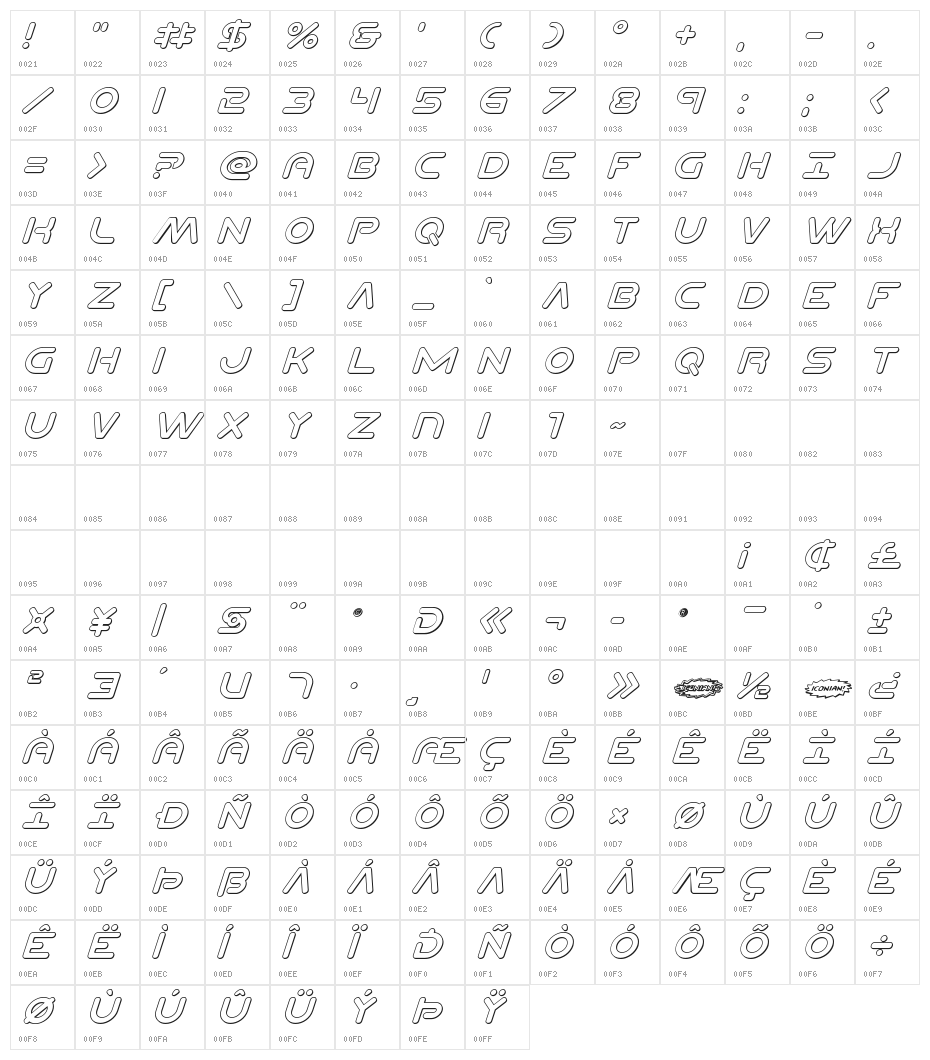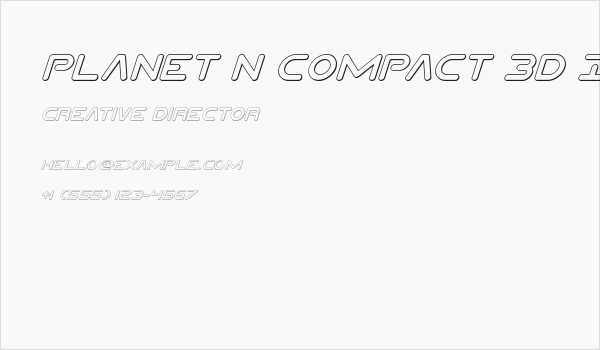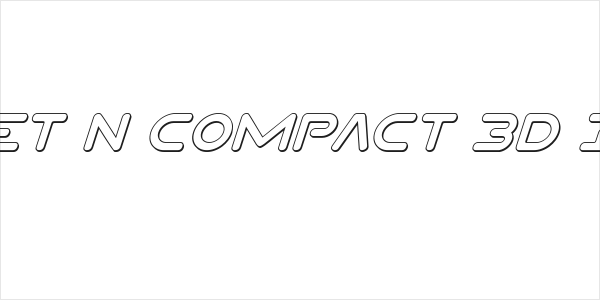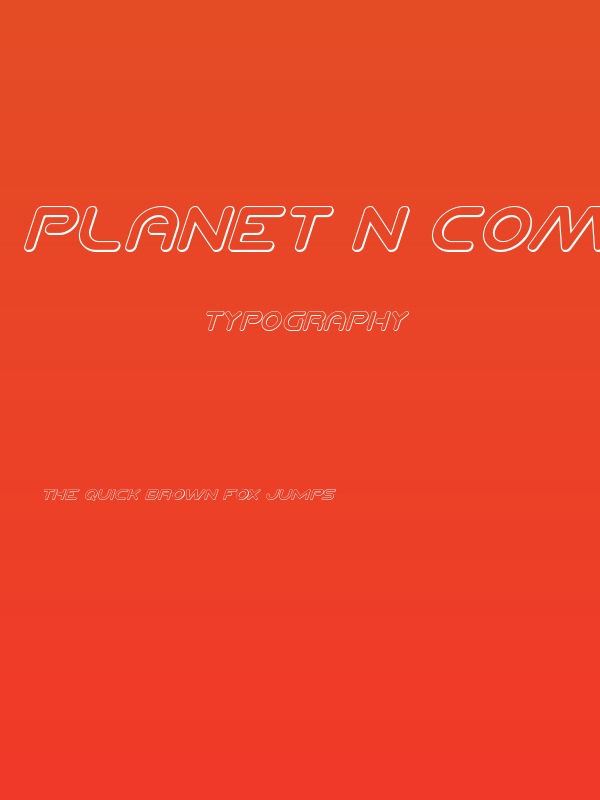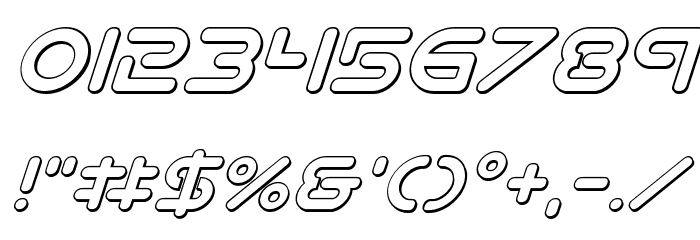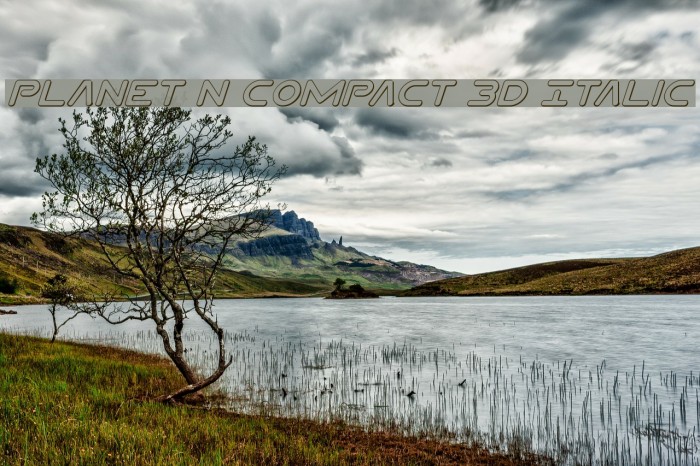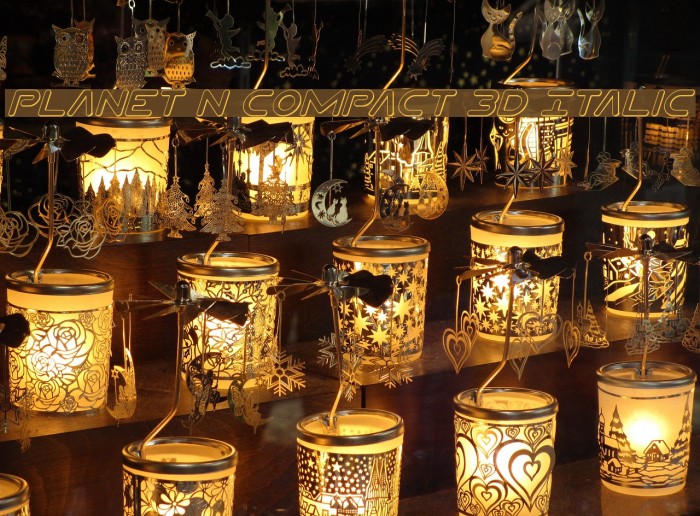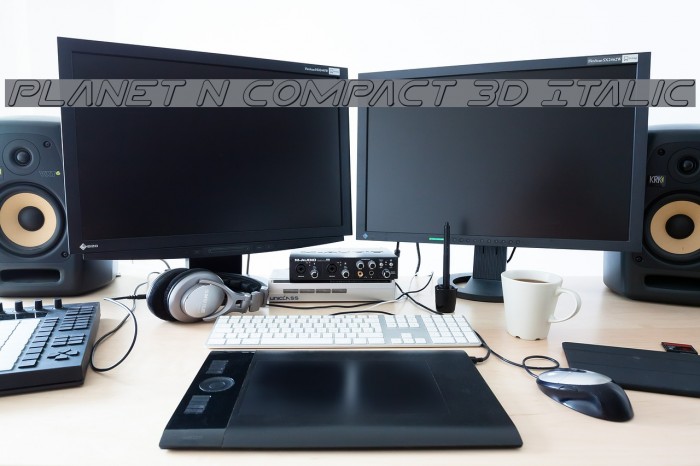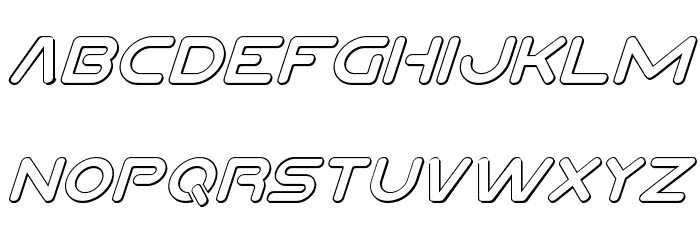
Planet N Compact 3D Italic Font
This font features a futuristic and sleek design with a 3D effect that gives it a unique depth and dimension. The characters are outlined, creating a hollow appearance that enhances its modern aesthetic. Each letter is slightly italicized, adding a dynamic and forward-moving feel. The rounded edges and smooth curves contribute to its contemporary style, making it visually appealing and easy to read. The font maintains consistent spacing and alignment, ensuring clarity and legibility across all characters. Its distinctive style makes it suitable for projects that require a modern and innovative look.
| Proposed Projects | Ideal for technology branding, sci-fi themed designs, modern posters, and innovative product packaging. |